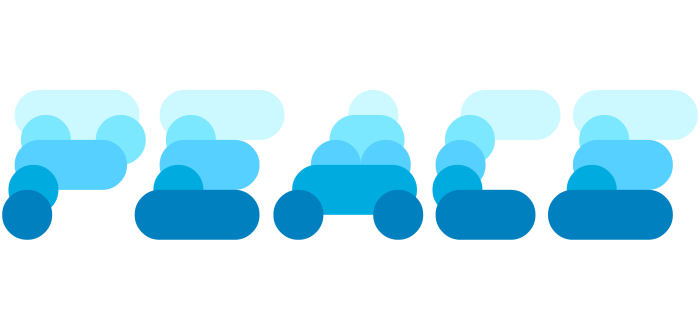
The new paypal brand identity? ;-)
That color gradient do be looking pretty nice.
@four - What a wonderful concept --  the skillful use of a color gradient to imply depth!  :^)
Very smart. Also, each of these letters can be a logo for any brand.
And the name is perfect.
Amazing idea and great execution! Really like these colors 😁
The shaping, colors and gradient give it almost a raincloud-like look, very eye-catching~
Congratulations! FontStruct Staff have deemed your FontStruction worthy of special mention. “lucht” is now a Top Pick.
Reminds me of the RTP logo... for some reason.
wgat does lucht mean
@digitalio It means sky in Dutch.
how you added colors ?
Wow what a great idea! 10/10
beautiful font!!!!!
A little sample I made